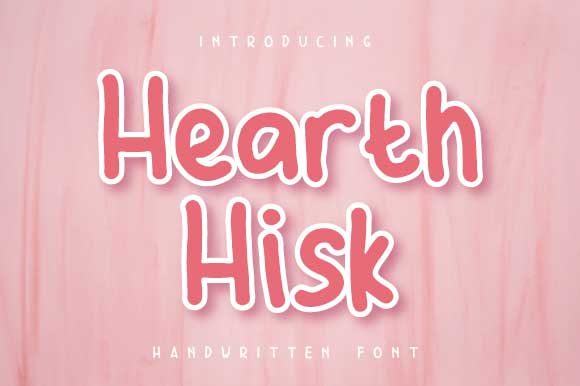
Hearth Hisk Font: The Cute and Friendly Handwritten Font to Bring Your Creative Ideas to Life
Are you a designer, crafter, or DIY enthusiast looking for a font that can add a touch of warmth and personality to your creative projects? Look no further than Hearth Hisk, a delightful handwritten font that’s sure to make your ideas come alive! In this article, we’ll explore the features and benefits of Hearth Hisk, and show you how to make the most of this charming font.
What is Hearth Hisk Font?
Hearth Hisk is a carefully crafted handwritten font that’s designed to evoke a sense of friendliness and approachability. With its soft, rounded edges and playful letterforms, this font is perfect for adding a personal touch to your creative projects. Whether you’re working on a branding campaign, a craft project, or a DIY tutorial, Hearth Hisk is the ideal choice for anyone looking to add a dash of personality to their work.
Key Features of Hearth Hisk Font
- Cute and Friendly Design: Hearth Hisk’s unique design is characterized by its soft, rounded edges and playful letterforms, making it perfect for projects that require a friendly and approachable tone.
- Handwritten Style: This font boasts a genuine handwritten look that’s perfect for adding a personal touch to your creative projects.
- Easy to Read: Despite its playful design, Hearth Hisk is remarkably easy to read, making it suitable for use in a wide range of applications, from headings and titles to body text.
- Versatile: Hearth Hisk is a versatile font that can be used in a variety of contexts, from crafting and DIY projects to branding and advertising campaigns.
How to Use Hearth Hisk Font in Your Creative Projects
Adding Hearth Hisk to your creative projects is easy! Here are a few ideas to get you started:
- Crafting and DIY Projects: Use Hearth Hisk to add a personal touch to your crafting and DIY projects, such as handmade cards, gift tags, and scrapbooking pages.
- Branding and Advertising: Add a touch of warmth and personality to your branding and advertising campaigns with Hearth Hisk, perfect for businesses that want to establish a friendly and approachable tone.
- Social Media Graphics: Use Hearth Hisk to create eye-catching social media graphics, such as quote graphics, motivational posters, and event announcements.
- Web Design: Add a personal touch to your website with Hearth Hisk, perfect for use in headings, titles, and body text.
Tips for Getting the Most Out of Hearth Hisk Font
To make the most of Hearth Hisk, here are a few tips to keep in mind:
- Experiment with Font Sizes: Hearth Hisk looks great in a variety of font sizes, so don’t be afraid to experiment to find the perfect size for your project.
- Pair with Other Fonts: Hearth Hisk pairs well with a range of other fonts, so try combining it with other fonts to create a unique and eye-catching look.
- Use in Combination with Images: Hearth Hisk looks great when used in combination with images, so try using it to add a personal touch to your graphics and illustrations.
In conclusion, Hearth Hisk is a delightful handwritten font that’s perfect for designers, crafters, and DIY enthusiasts looking to add a touch of warmth and personality to their creative projects. With its cute and friendly design, easy readability, and versatility, Hearth Hisk is the ideal choice for anyone looking to bring their ideas to life. So why not give Hearth Hisk a try today and see the difference it can make in your creative projects?